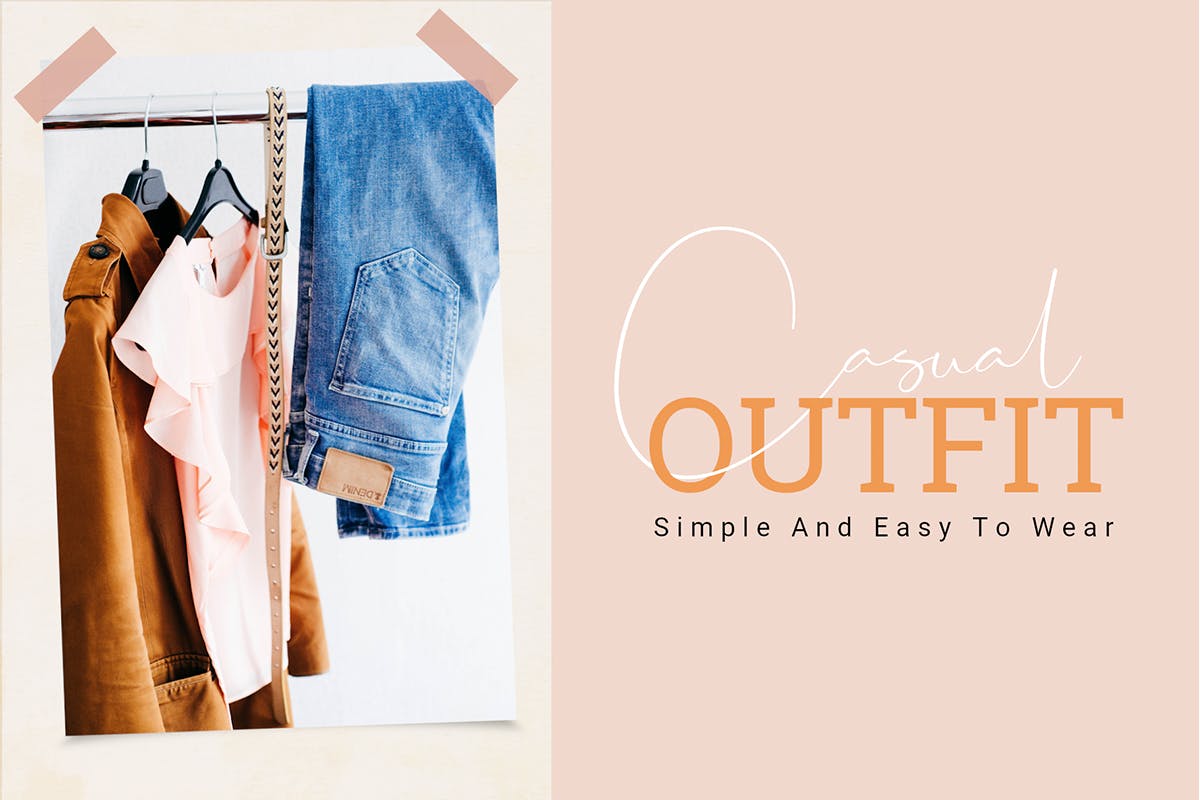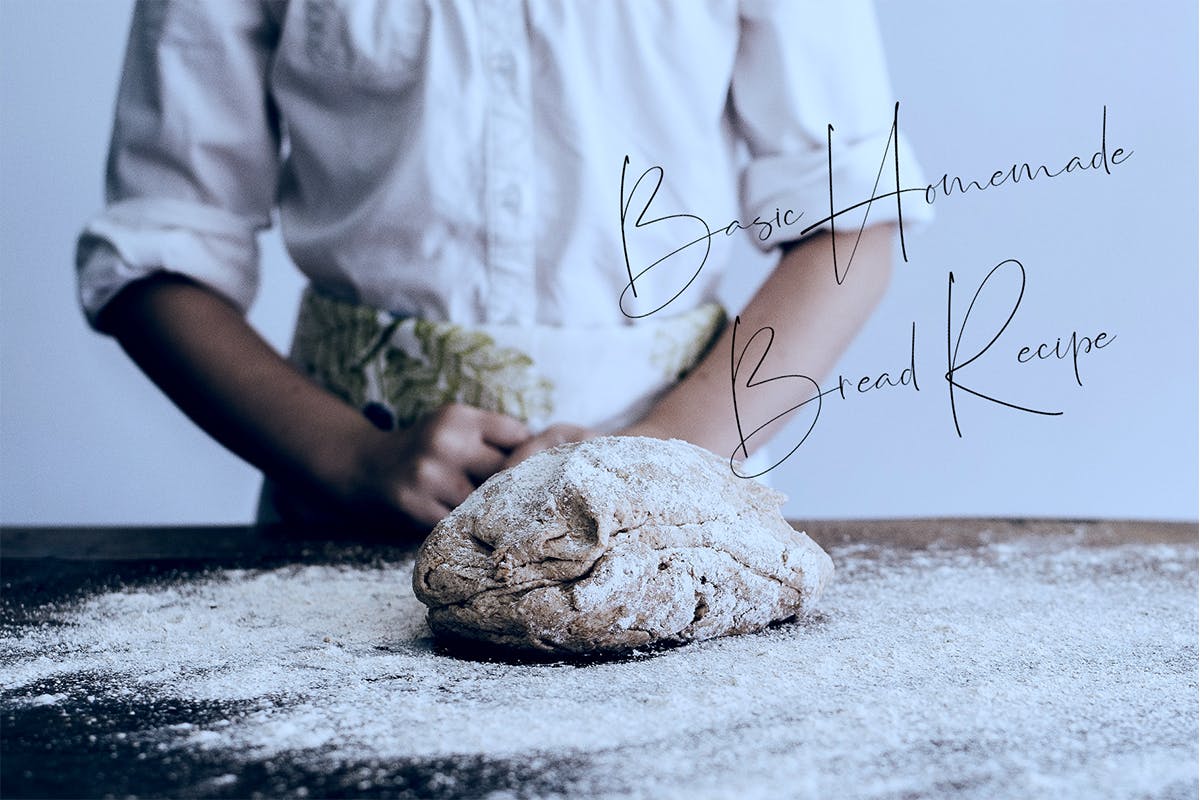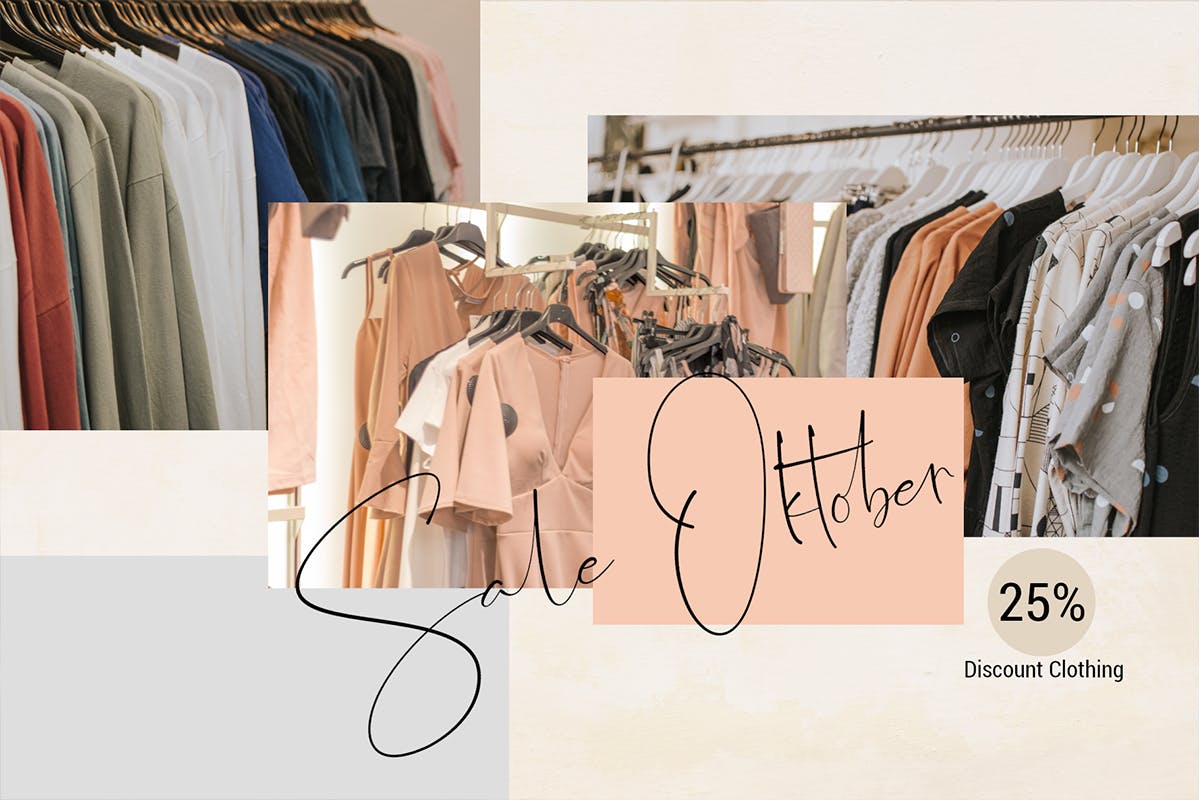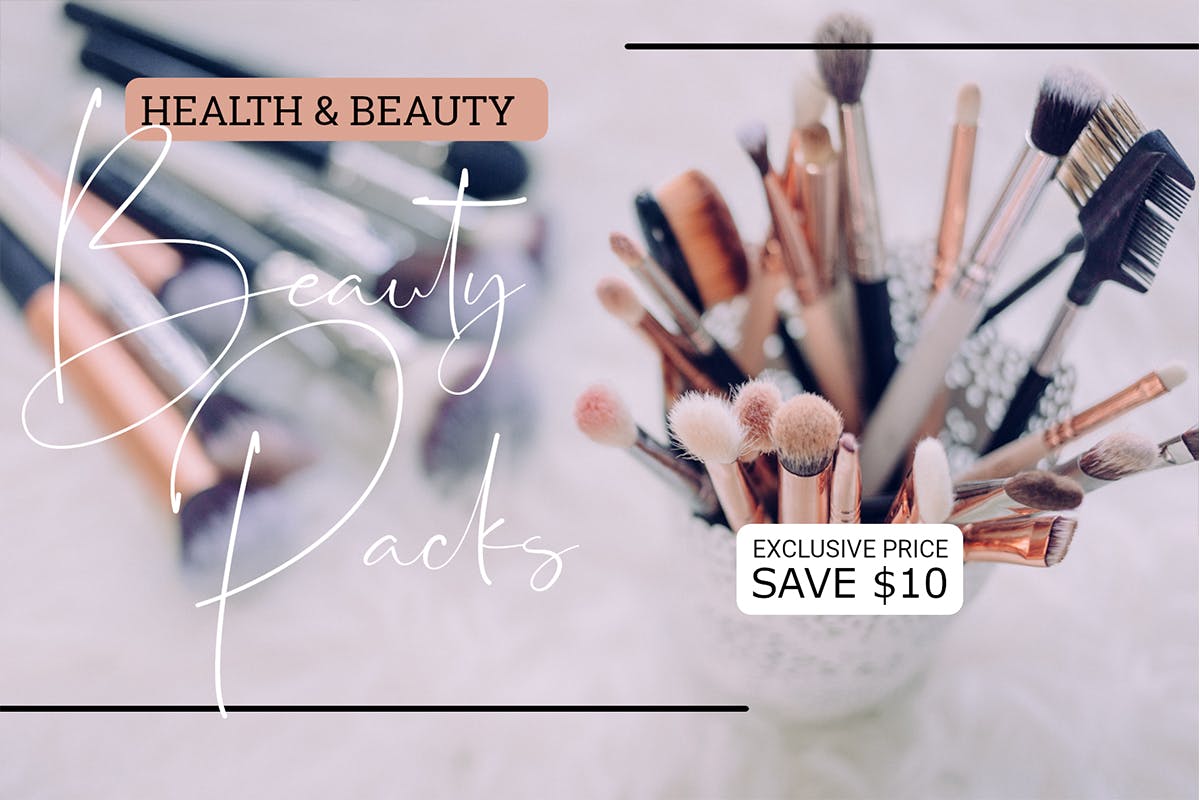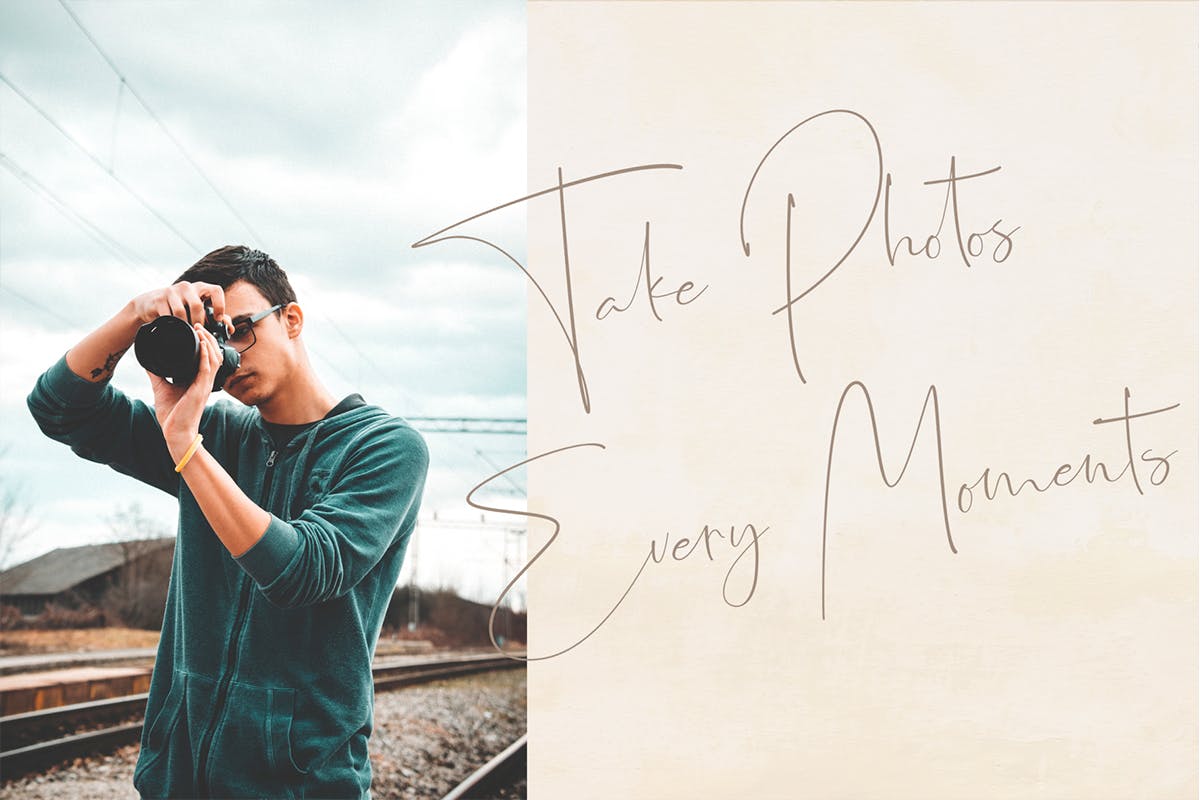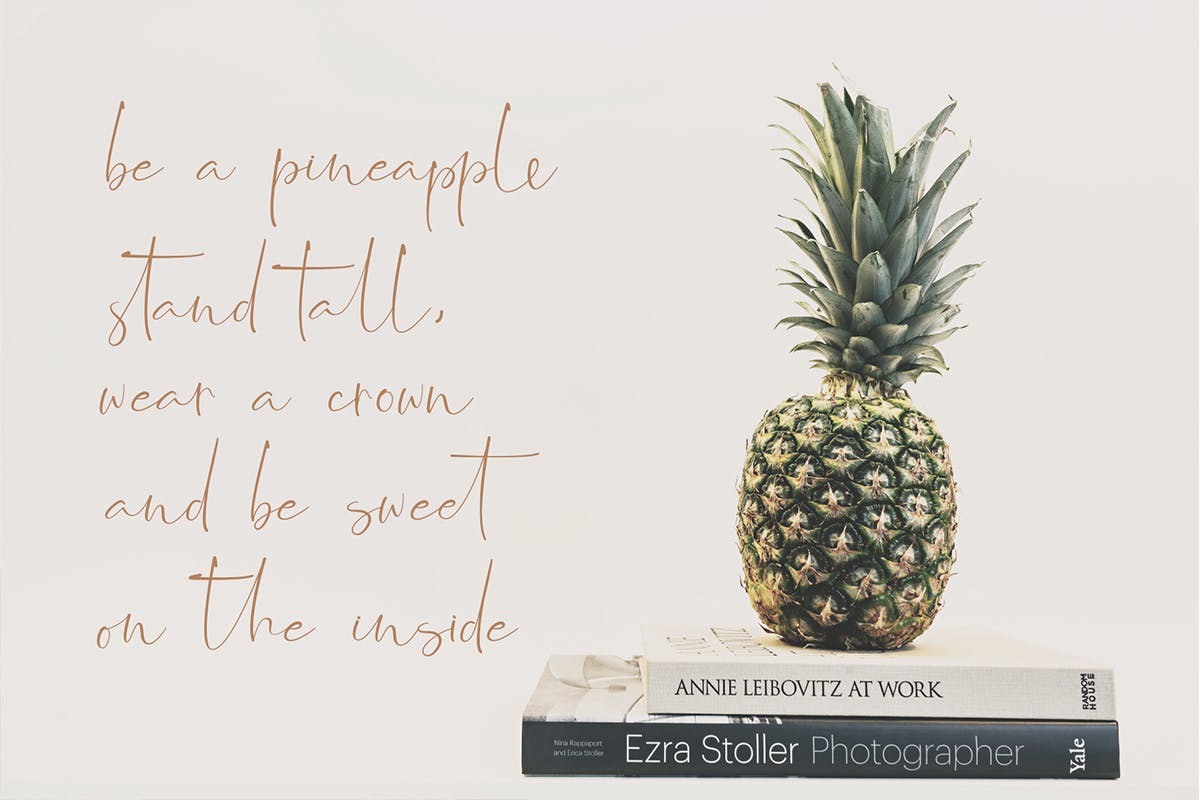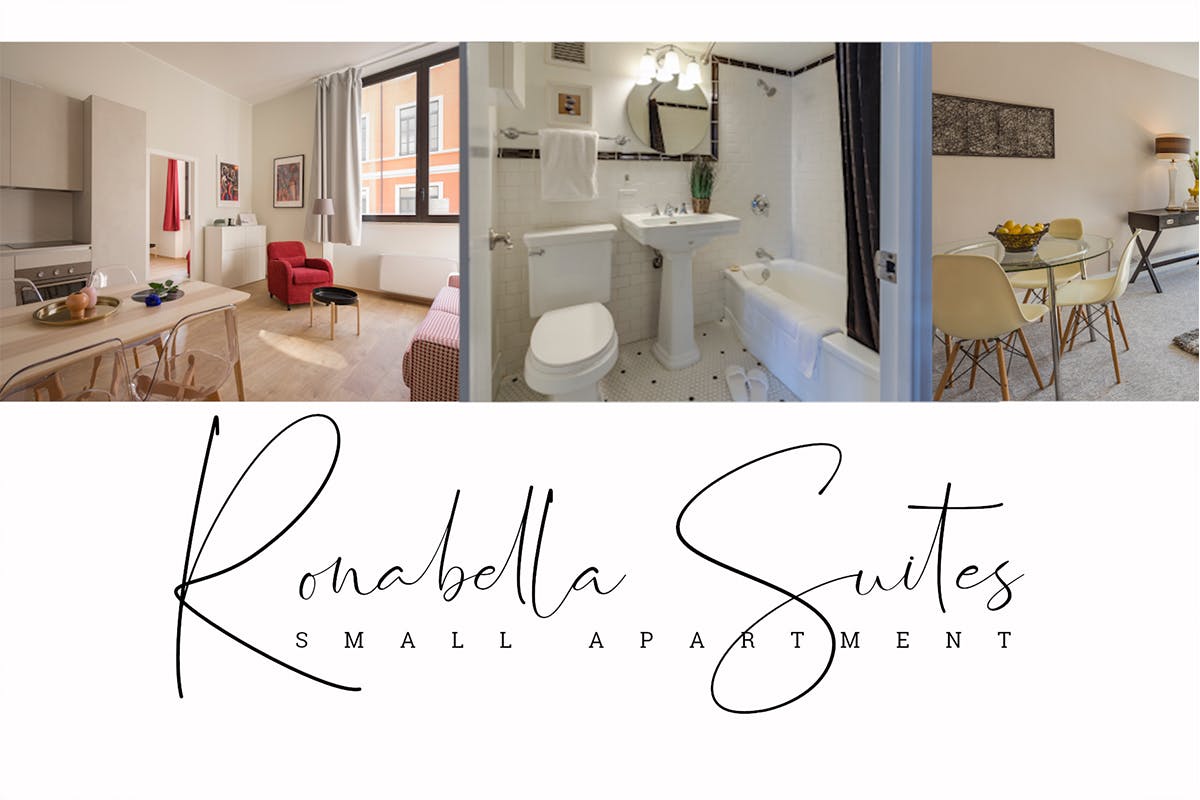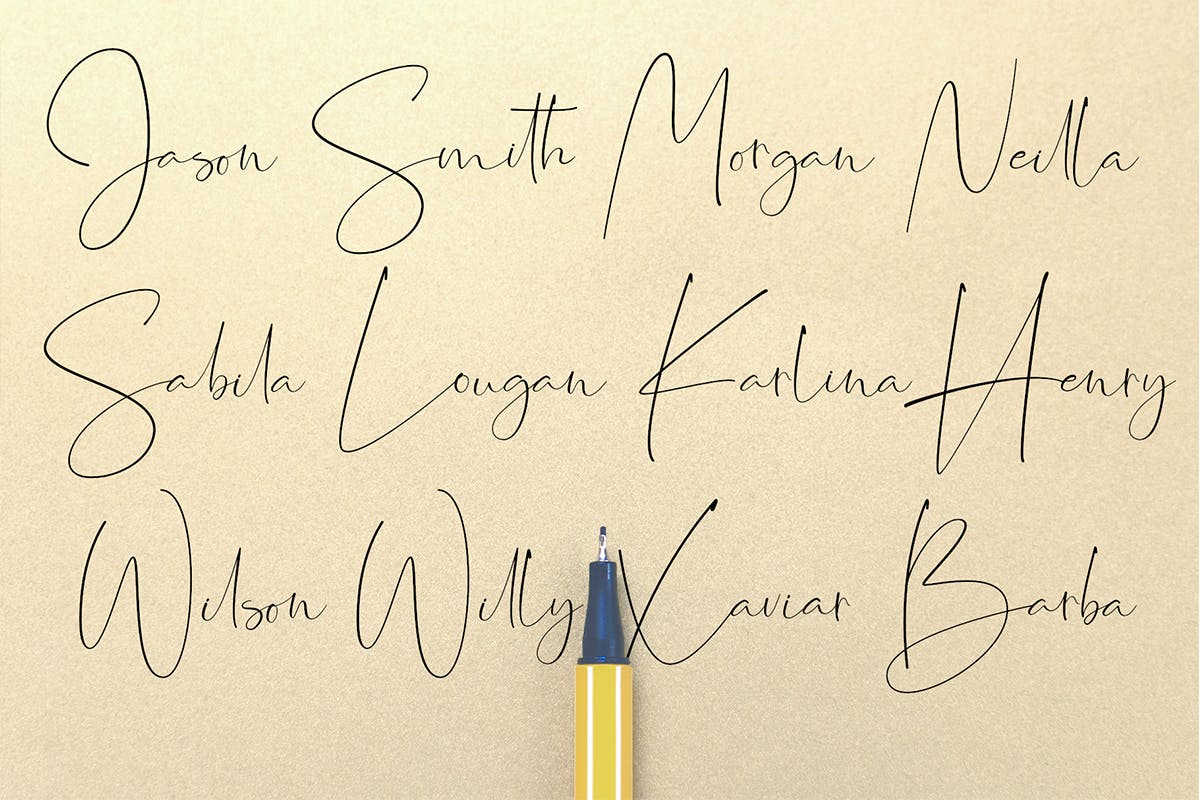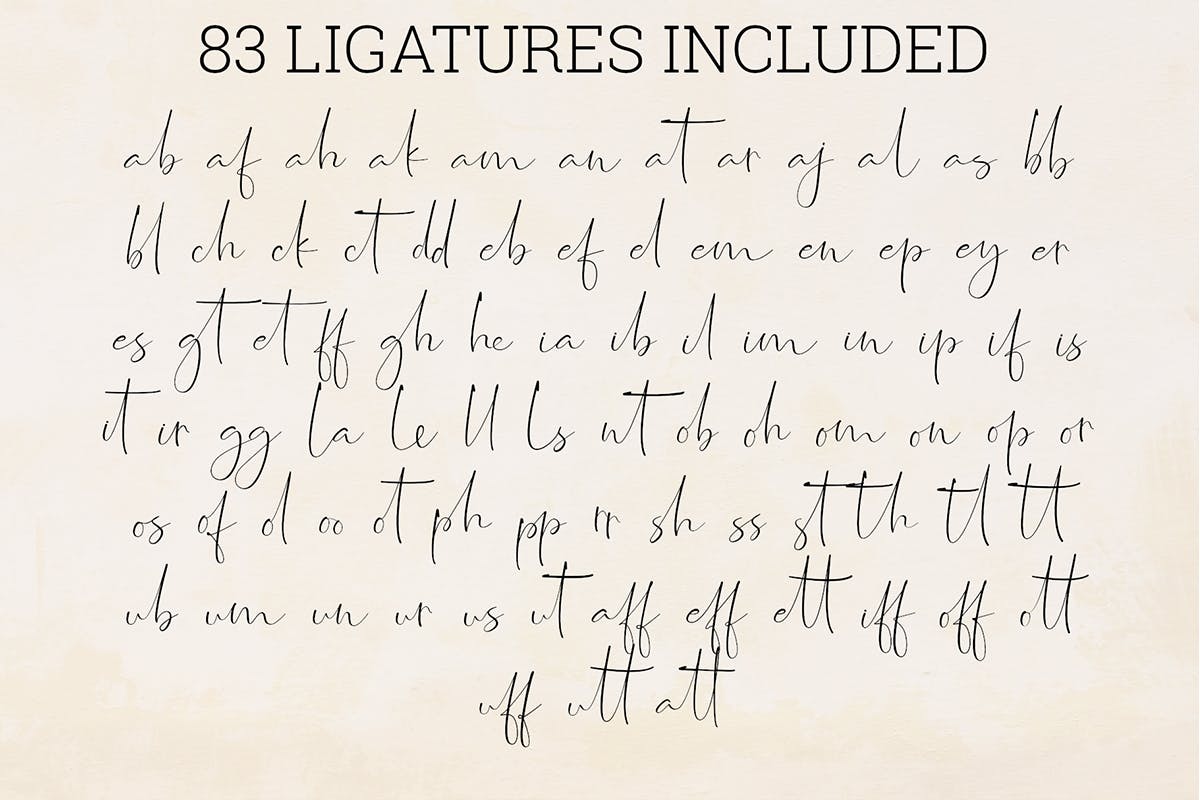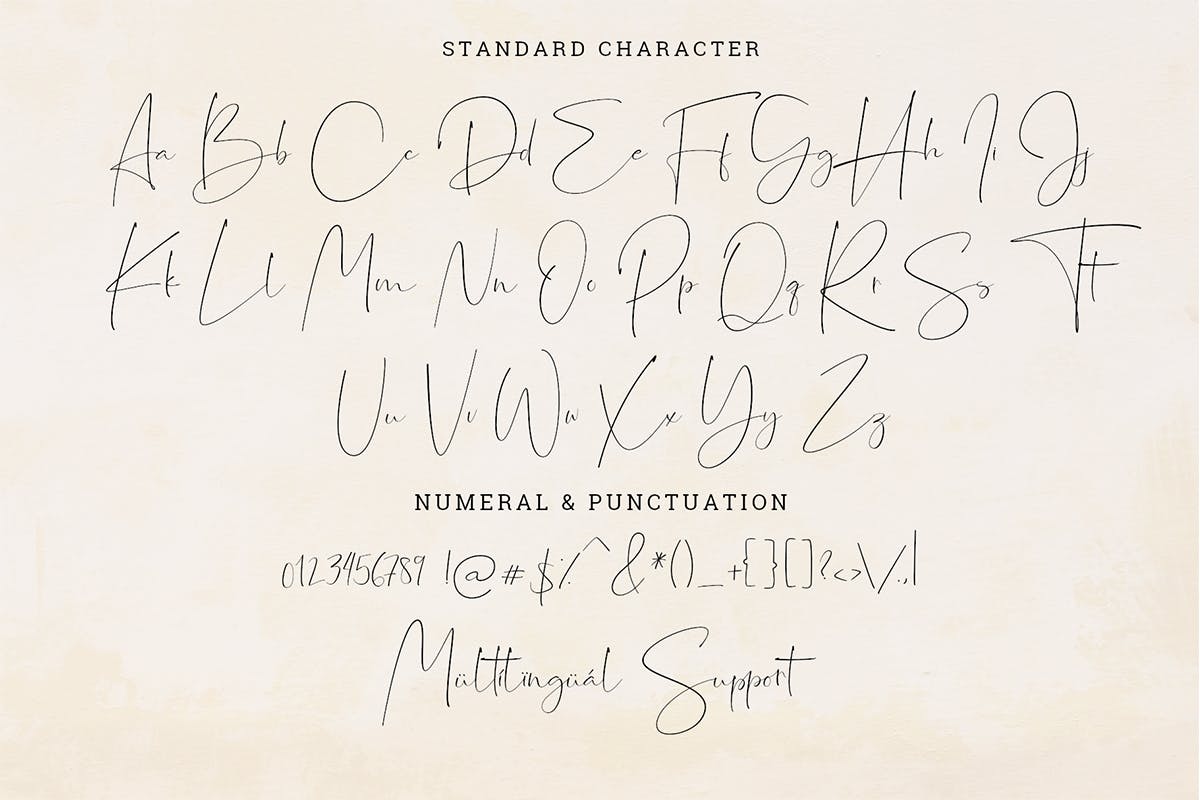
Free Jasmine Signature Font
Free Jasmine Signature Font is an awesome font that uses a nice hand-lettering. It is coming with 2 format files which are TTF and OTF. This free font is suitable for your works such as logos, business cards, wedding invitations, branding, magazines, and more. However, it is allowed for personal projects, but you can use it for commercial projects unless you purchase the full version. Come go get it by clicking the premium version below.